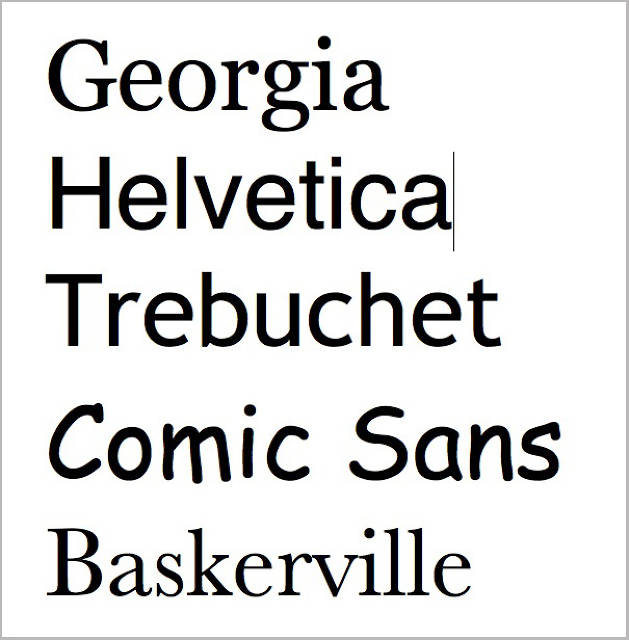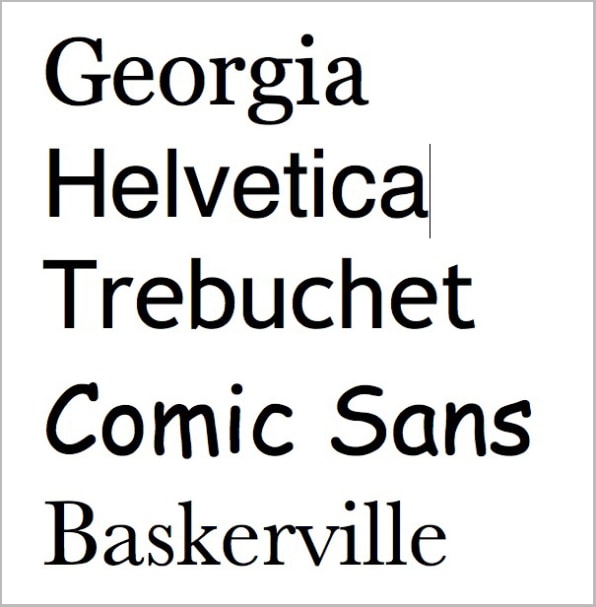
Are Some Fonts More Believable Than Others?
Recently, Errol Morris pulled a covert experiment on readers of The New York Times. The result? Typefaces can sway your beliefs.
Are some fonts more believable than others? A curious experiment by documentary filmmaker Errol Morris suggests as much. After polling approximately 45,000 unsuspecting readers on nytimes.com, Morris discovered that subjects were more likely to believe a statement when it was written in Baskerville than when it was written in Computer Modern, Georgia, Helvetica, Trebuchet, or Comic Sans. Baskerville: truth’s favorite typeface?
Let’s look at how Morris got here: A frequent contributor to the New York Times’s Opinionator blog, Morris encouraged readers to peruse a passage from The Beginning of Infinity, by physicist David Deutsch, on the unlikelihood that Earth will be destroyed by an asteroid. Then, he asked them to take a survey on whether they thought Deutsch’s statement was true, and how confident they felt in that conclusion. “Are You an Optimist or a Pessimist?” the post’s headline read.
But the poll was a cover--a ruse to get at the real question, how does typography influence our perception of truth? Morris tapped animator Benjamin Berman to develop a program that altered the typeface of the Deutsch passage, such that it appeared to each reader in one of the six randomly assigned typefaces mentioned above. Cornell psychology professor David Dunning helped design the test.
The results: For every 1,000 respondents, almost five more people agreed with Deutsch’s statement when it was written in Baskerville than they did when it was written in Helvetica. That might not seem terribly impressive, but Dunning assures us that this so-called Baskerville Effect is indeed statistically significant:
It’s small, but it’s about a 1% to 2% difference — 1.5% to be exact, which may seem small but to me is rather large. You are collecting these data in an uncontrolled environment (who knows, for example just how each person’s computer is rendering each font, how large the font is, is it on an iPad or iPhone, laptop or desktop), are their kids breaking furniture in the background, etc. So to see any difference is impressive. Many online marketers would kill for a 2% advantage either in more clicks or more clicks leading to sales.
What makes Baskerville so convincing? Your guess is as good as mine. Maybe the typeface has, as Morris wonders, a sort of “religious pull” that tugs at something fundamental within us. Or maybe we’re just trained to accept some typefaces as more authoritative than others; perhaps Baskerville was the favored typeface of our childhood textbooks. Whatever the answer, Morris worries about the power of type’s invisible hand:
Truth is not typeface dependent, but a typeface can subtly influence us to believe that a sentence is true. Could it swing an election? Induce us to buy a new dinette set? Change some of our most deeply held and cherished beliefs? Indeed, we may be at the mercy of typefaces in ways that we are only dimly beginning to recognize. An effect — subtle, almost indiscernible, but irrefutably there. (“Mommy, Mommy, the typeface made me do it.”)
It’d be fascinating for researchers to repeat the experiment on a larger scale, enlisting all the major fonts scattered around media today. Who knows how Baskerville would compare with Verdana or Times New Roman? It’s time we get to know our fonts better. Baskerville, stentorian and soberminded Baskerville, is a grave-faced TV anchor reading the news. Comic Sans is our gossipy idiot cousin. Morris has zeroed in on something we all implicitly knew: Typefaces have personality.